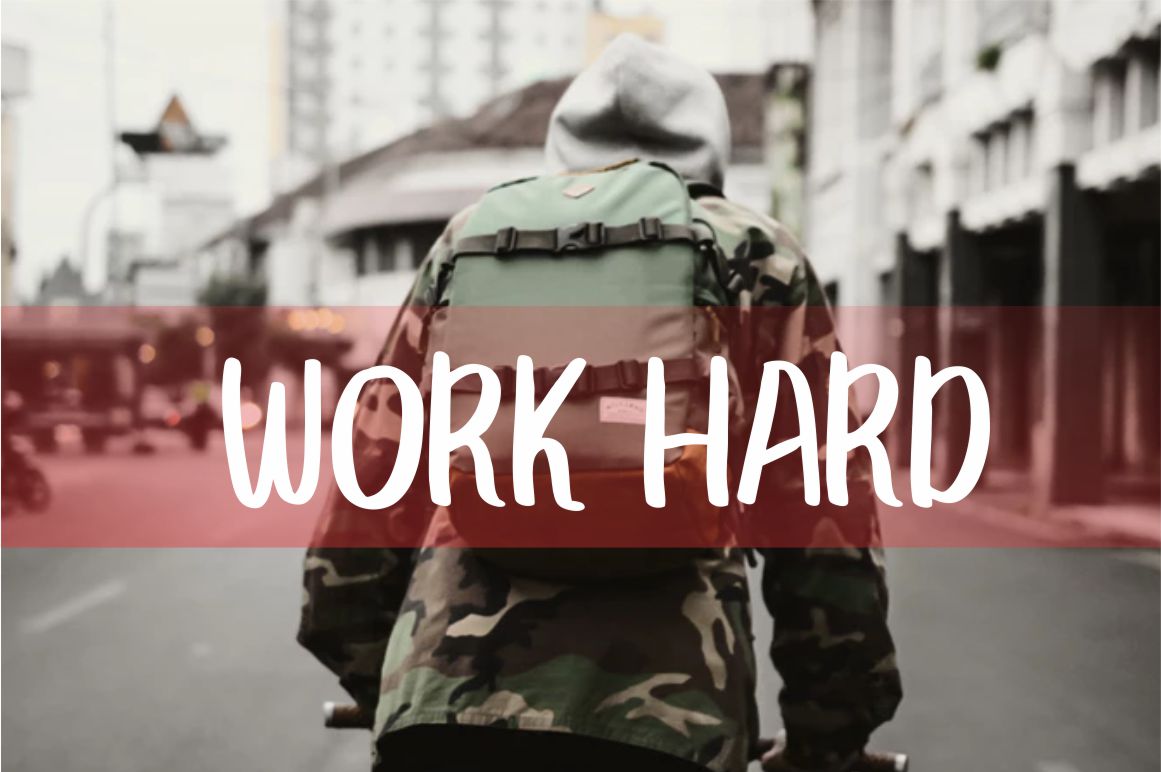
Free BREAK BEACH BRUSH FONT
Download and enjoy this free break beach – brush font. Cool typeface to showcase your designs in a modern way. Download this typeface from the original source of Pixelify. You can create a professional designs with this fancy font.